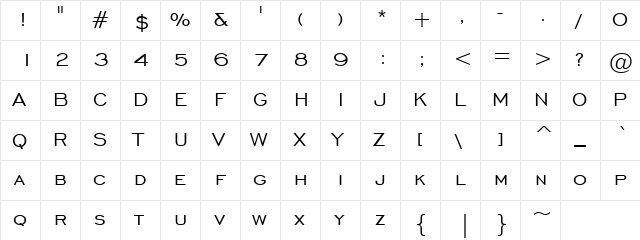
Cow Boy Regular
Design Context for Cow Boy Typeface
Cow Boy takes a measured approach to typography — its balanced proportions and neutral character make it a reliable workhorse for both digital and print work.